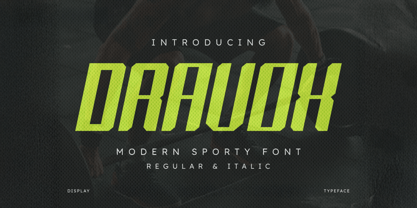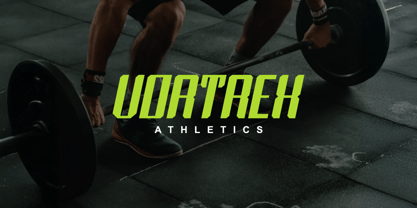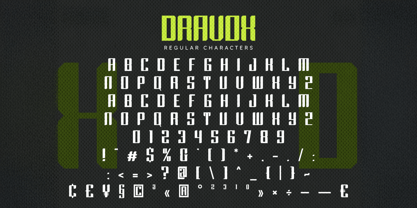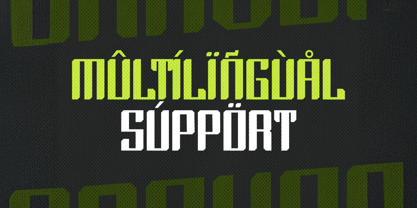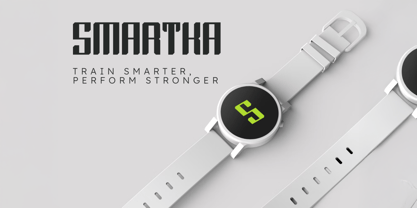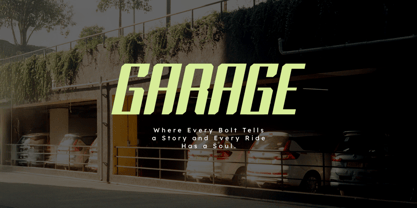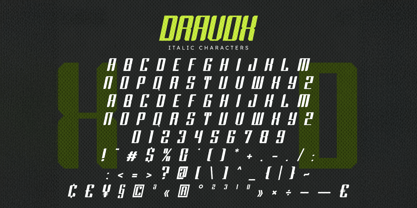
Dravox
by Lumbung Type
Dravox - Modern Sporty Display Font
Fuel your designs with bold energy and unstoppable motion.
Dravox is a modern sporty display font designed to elevate athletic, urban, and tech-inspired visuals with bold geometric forms and sharp angles. Its dynamic style captures the speed, strength, and precision of modern sports branding—making it perfect for logos, esports, apparel, posters, and action-themed headlines.
Crafted with attention to both power and readability, Dravox balances aggressive aesthetics with functional design. Whether you're working on a football tournament flyer, a racing brand, or gym merchandise, Dravox delivers a punchy, professional edge that demands attention.